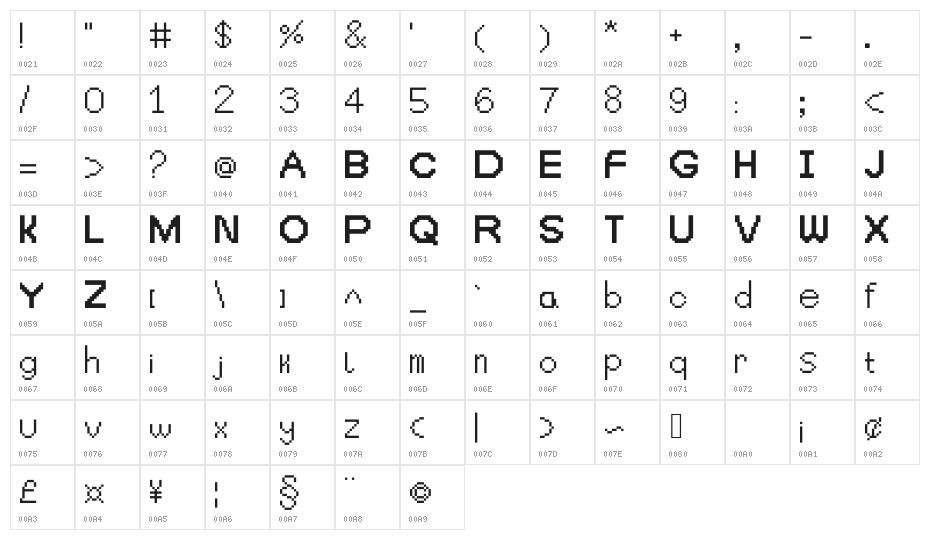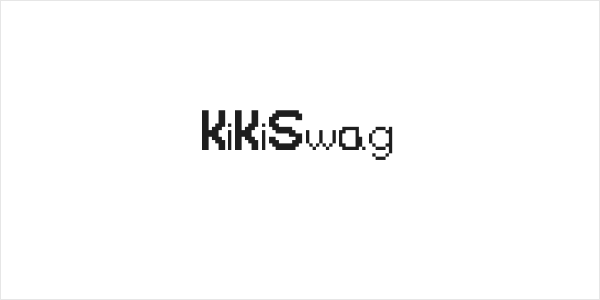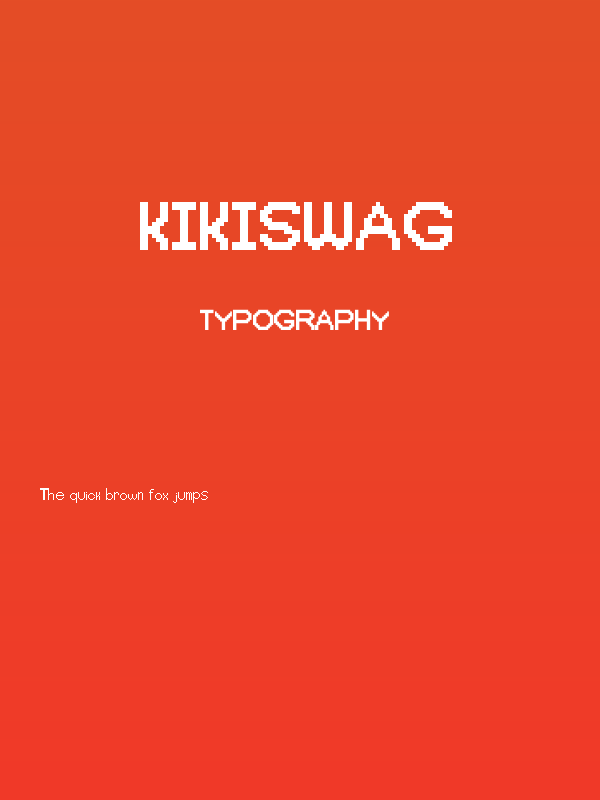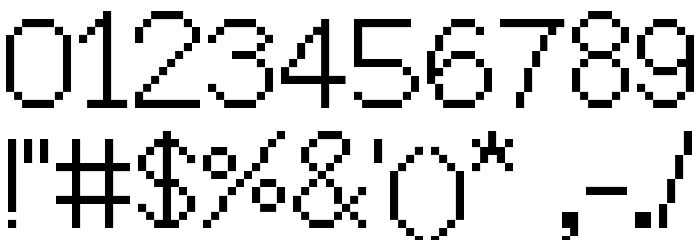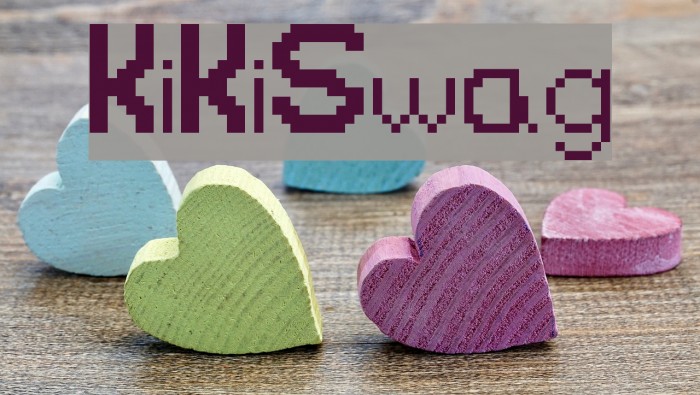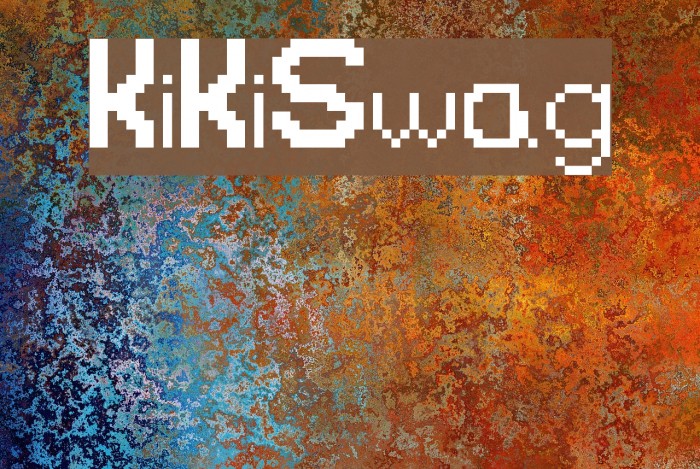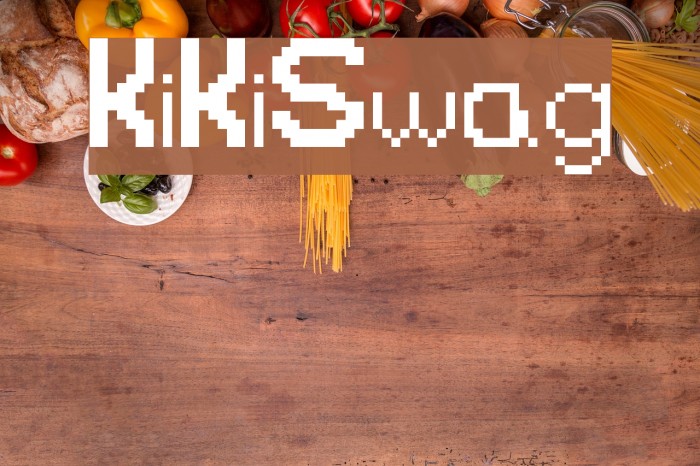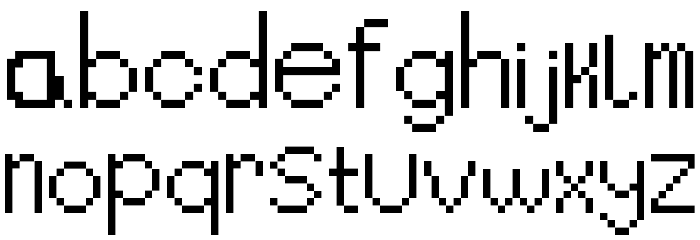
KiKiSwag Font
KiKiSwag Description
This font features a pixelated, blocky design reminiscent of early digital displays and retro video games. Each character is composed of small square blocks, giving it a distinctly digital and nostalgic feel. The uppercase and lowercase letters maintain a consistent height, with the lowercase letters slightly smaller in size. Numbers and special characters follow the same pixelated style, ensuring uniformity across all glyphs. The font's geometric structure and uniform line thickness contribute to its modern yet vintage appeal, making it ideal for projects that require a retro digital aesthetic.
| Use Case | Logos, Headlines, Digital Art |
| Proposed Projects | Ideal for retro-themed video games, digital art projects, and nostalgic branding materials. |